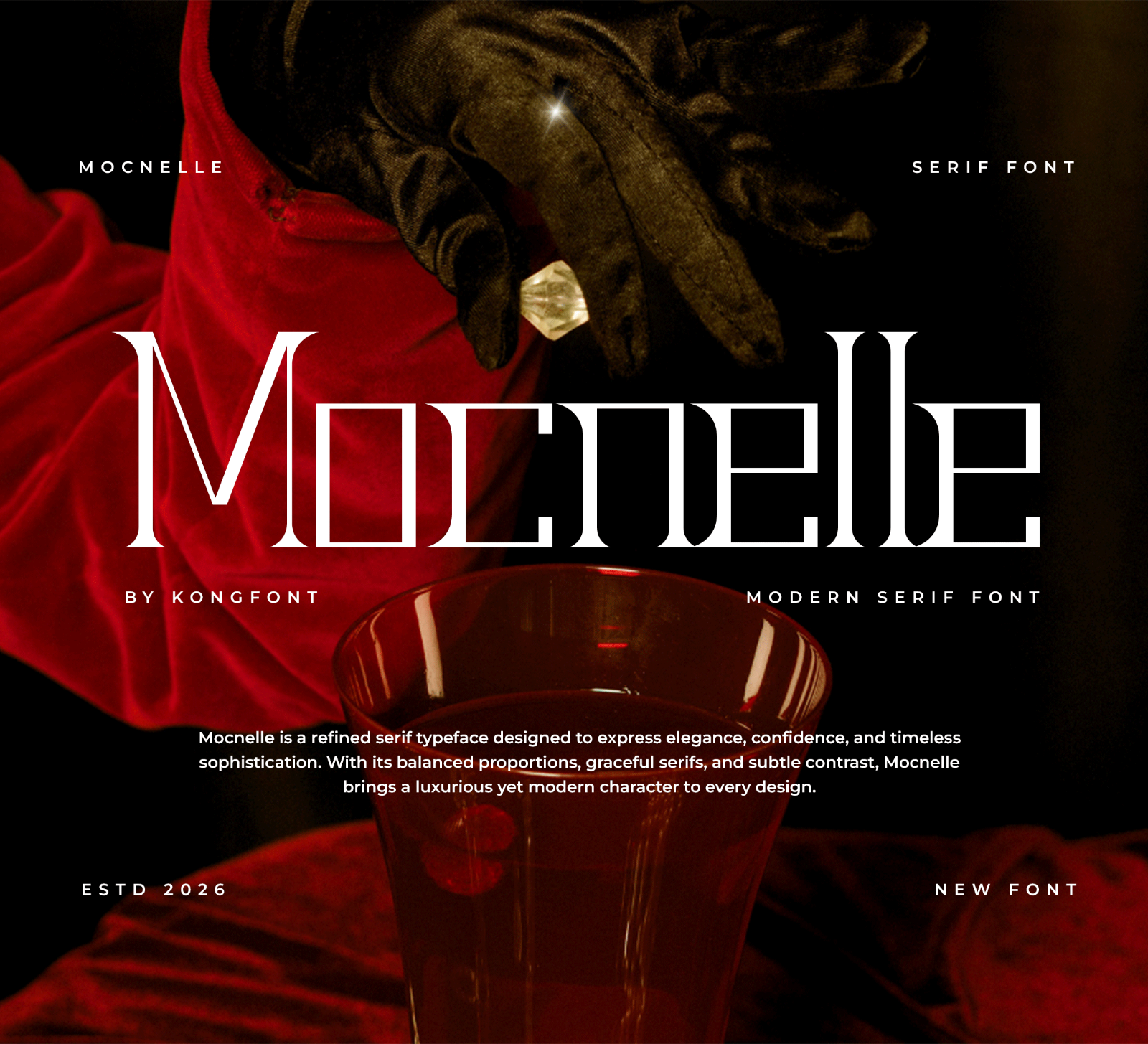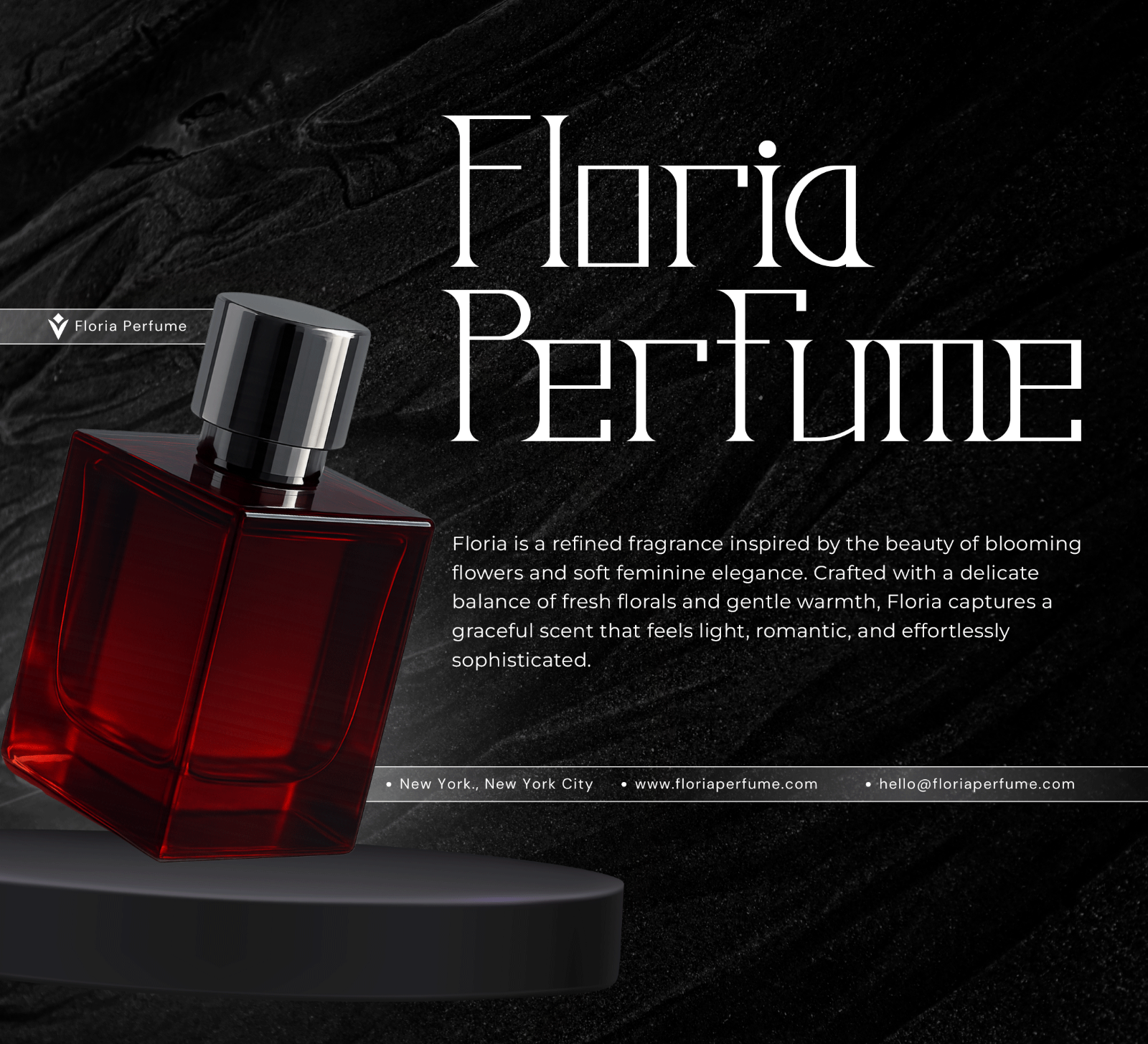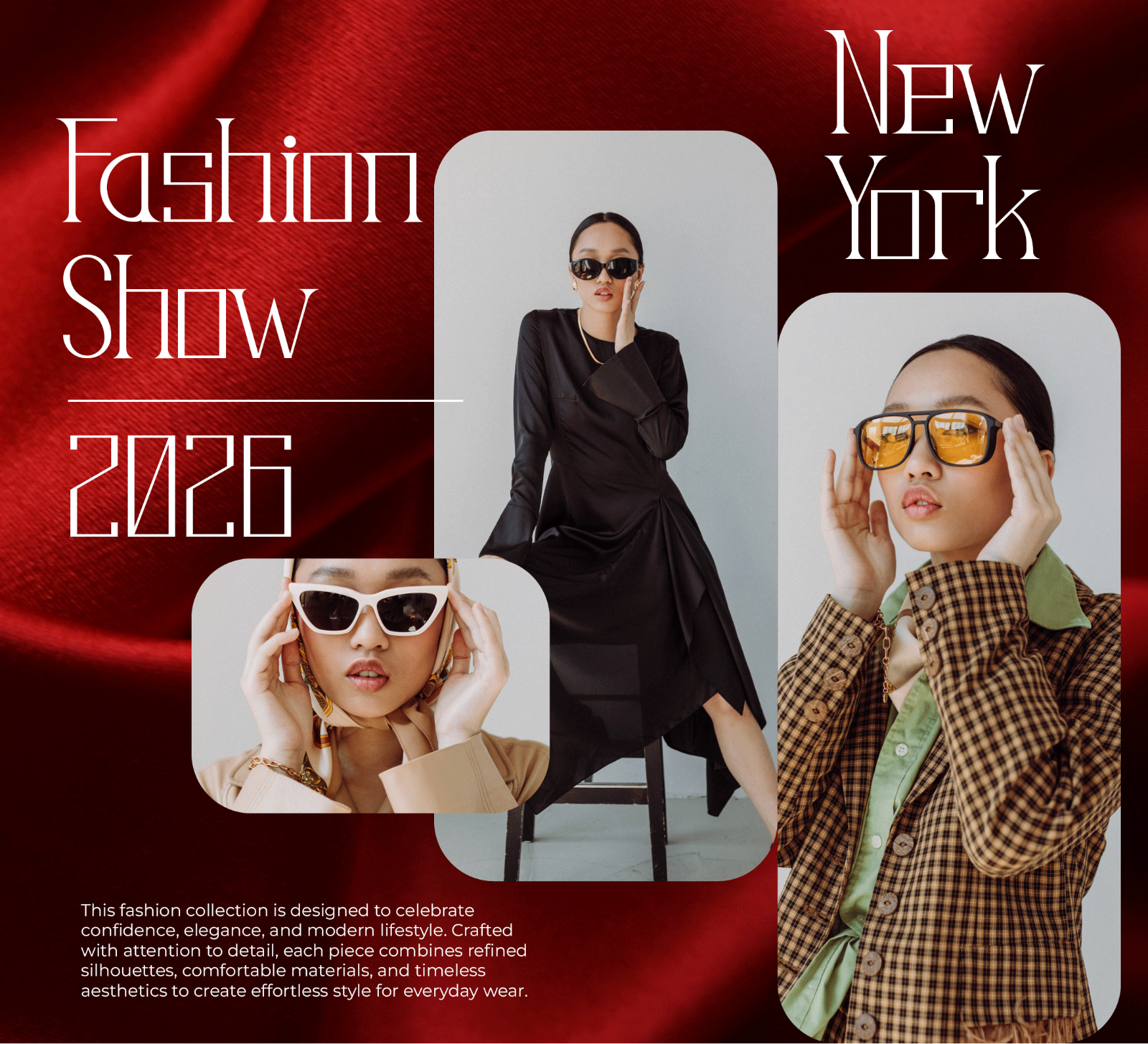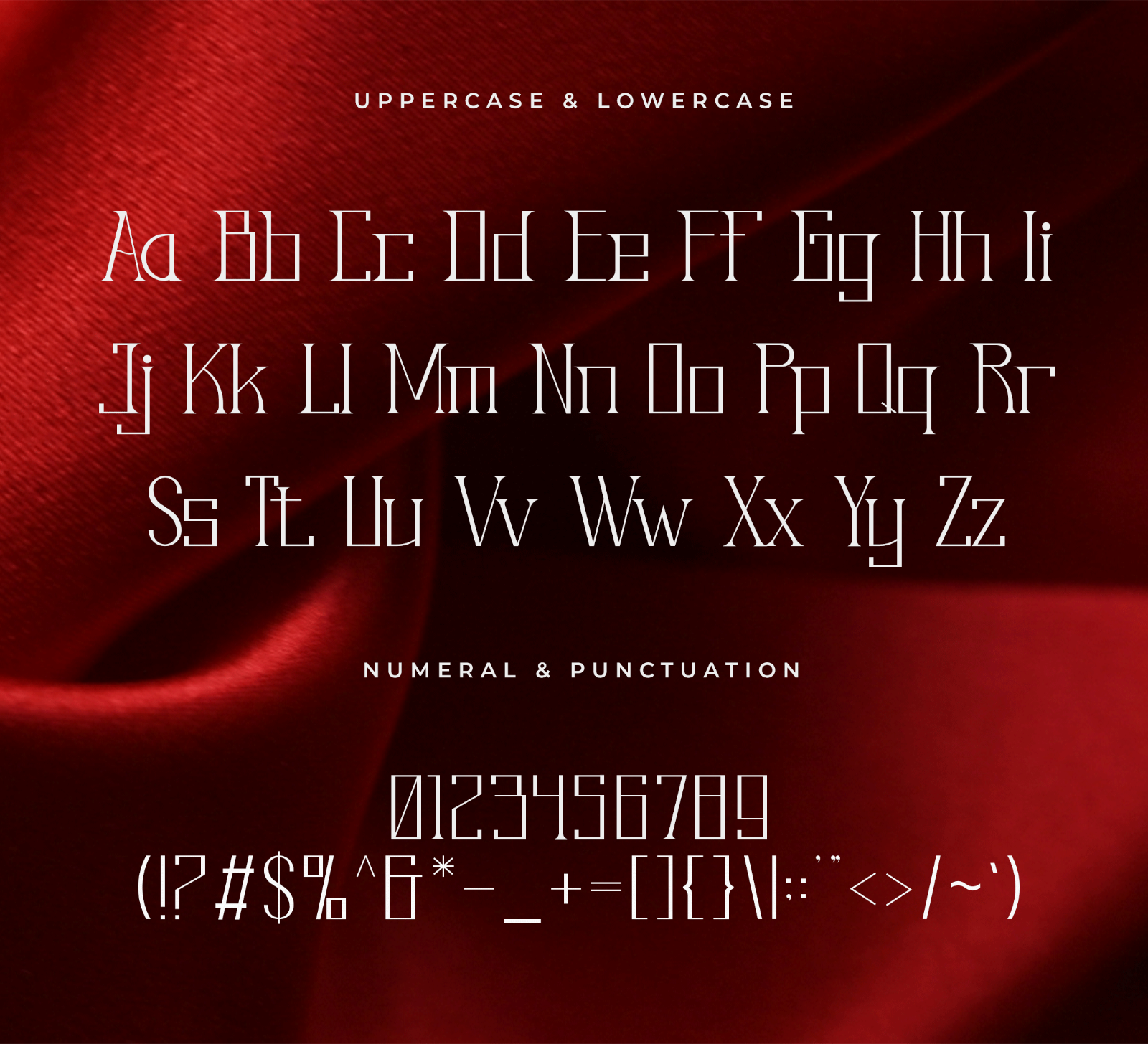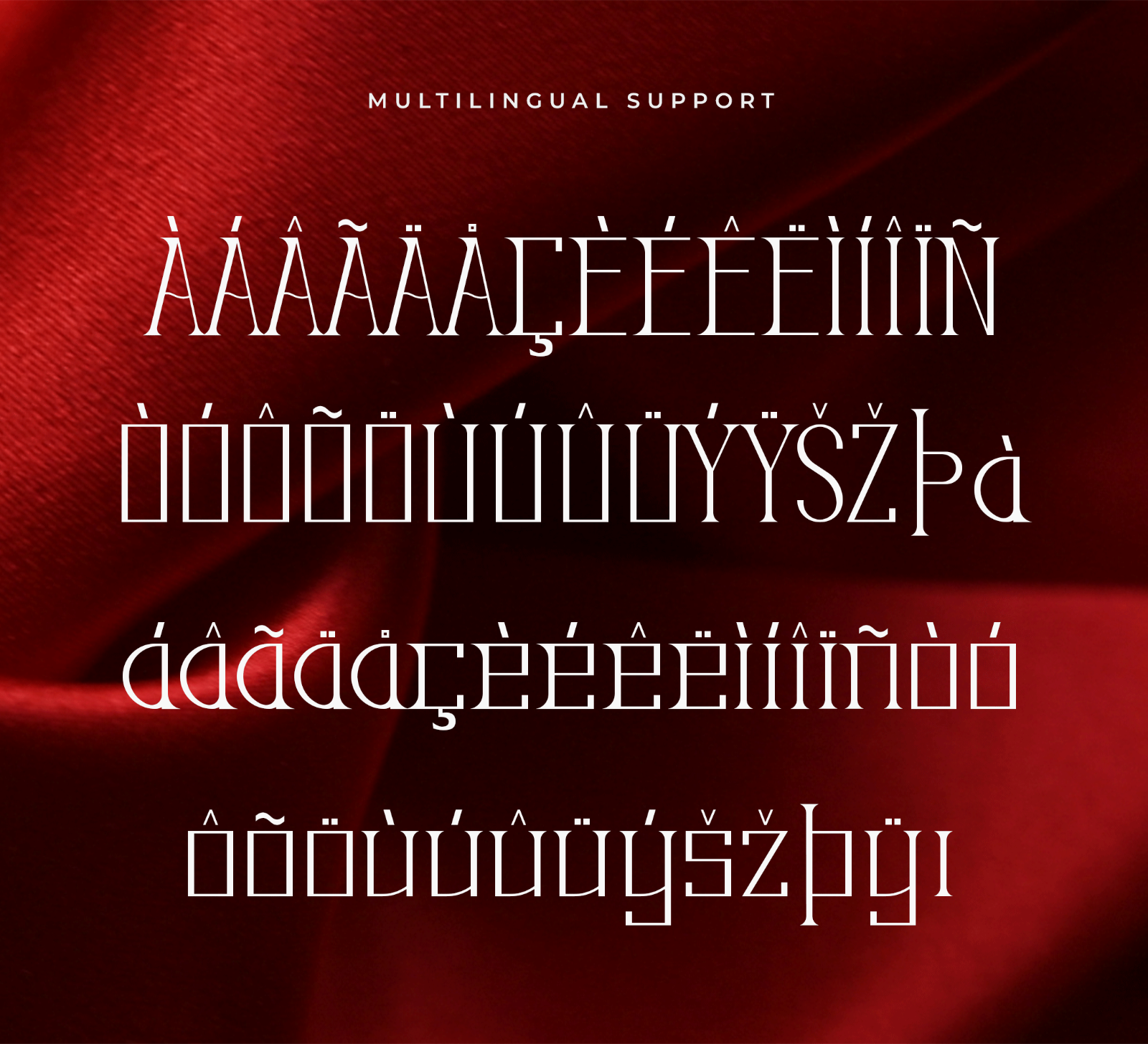
Mocnelle is a modern serif font with bold letterforms, smooth curves, and a clean contemporary style. Its elegant and distinctive look makes it perfect for stylish branding and eye-catching display typography.
• Branding
• Logos
• Business cards
• Blog headers
• Quotes
• Editorial titles
• Packaging
• Creative typography